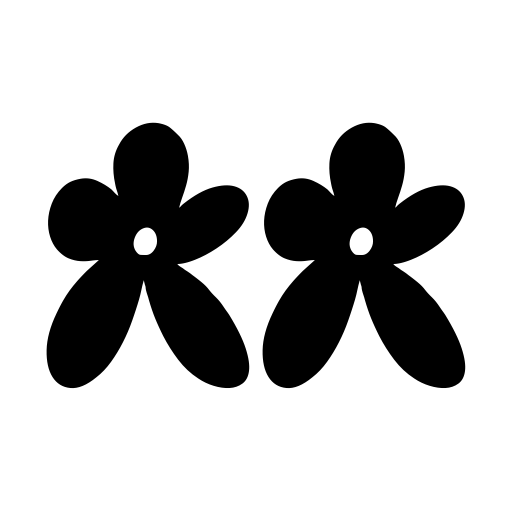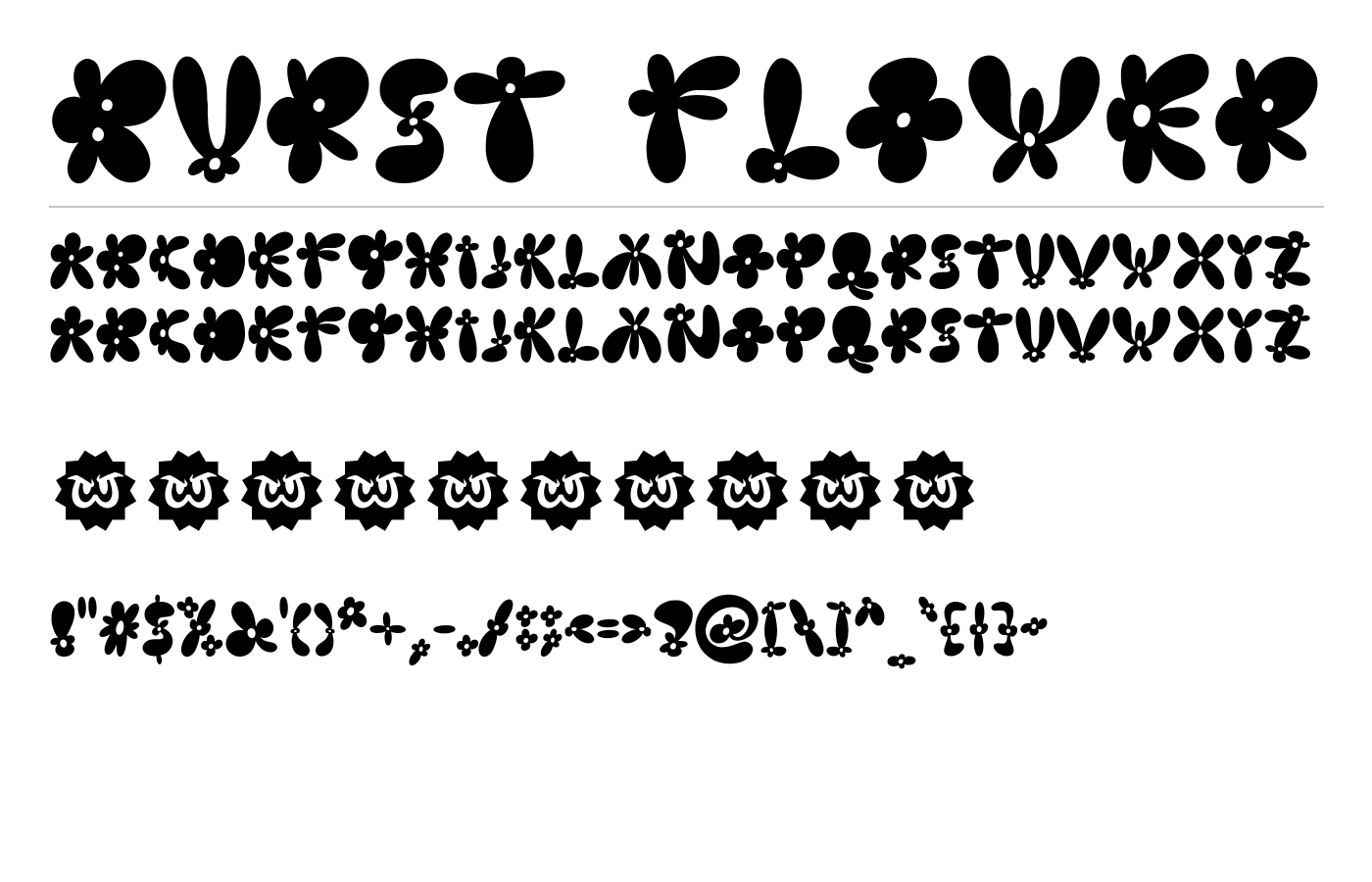
Burst Flower Font is a playful and bold display typeface characterized by its chunky, rounded letterforms that resemble blooming flowers. Its whimsical, decorative nature with high contrast in shape makes it perfect for eye-catching headlines, fun packaging, or creative logos that want to convey a joyful and lively vibe. This font works best in casual and artistic contexts where a unique, floral-inspired style can stand out.
Burst Flower Font
About Burst Flower Font
| Font family | Burst Flower Font |
| Designer | Miftahul Habib |